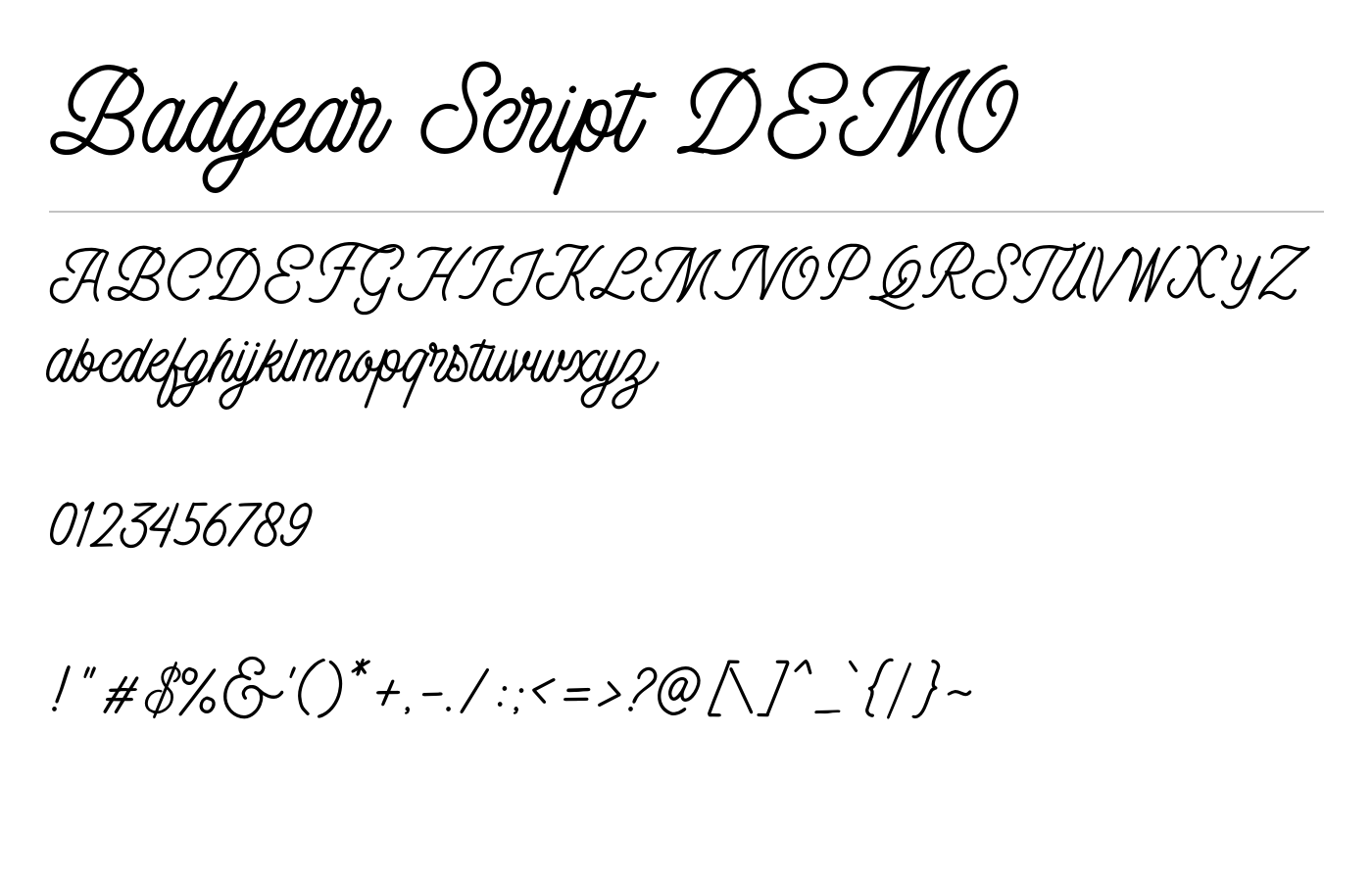
Badgear Script DEMO is a delicate, cursive script font characterized by its elegant, flowing strokes and moderate contrast that evoke a handwritten, vintage feel. Its slender and slightly condensed letterforms, combined with smooth curves and refined details, make it ideal for stylish branding, invitations, and feminine designs seeking a graceful yet approachable look. This font works particularly well in headlines and logos where a personal, sophisticated touch is desired.
Badgear Script DEMO Font
About Badgear Script DEMO Font